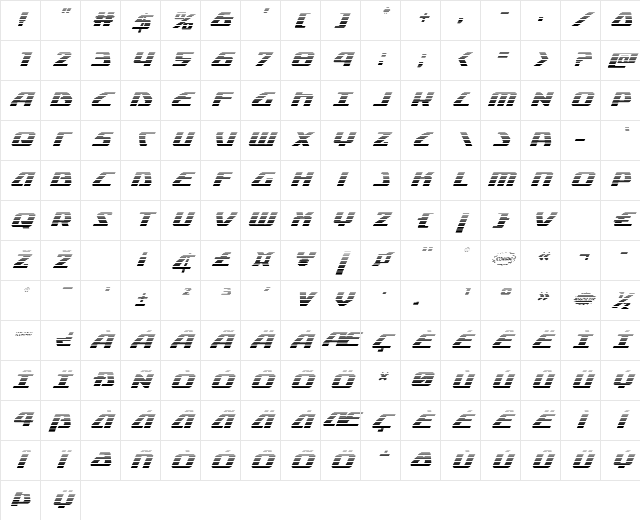
Global Dynamics Gradient Italic Italic Free Font
Global Dynamics Gradient Italic Italic
Design Context for Global Dynamics Gradient Italic
Global Dynamics Gradient Italic is a composed and adaptable typeface that performs quietly and consistently across a wide range of design contexts. The slanted form adds forward momentum and visual energy.
Pro Tip: Use Global Dynamics Gradient Italic for emphasis, pull quotes, and subheadings where its slanted energy can add rhythm to the layout.